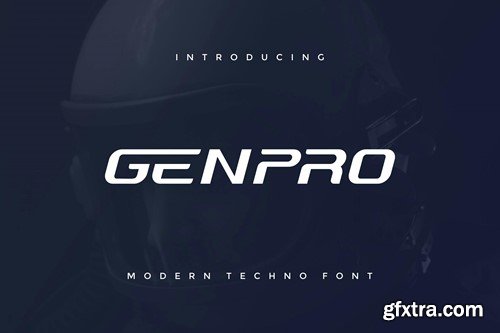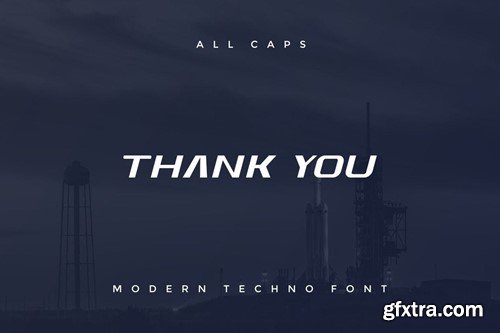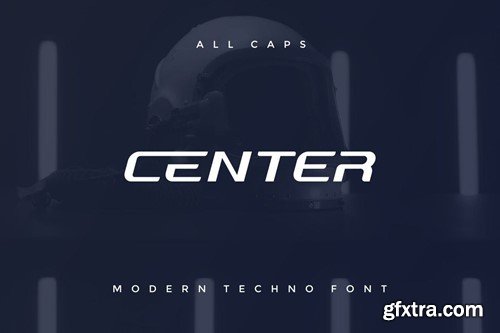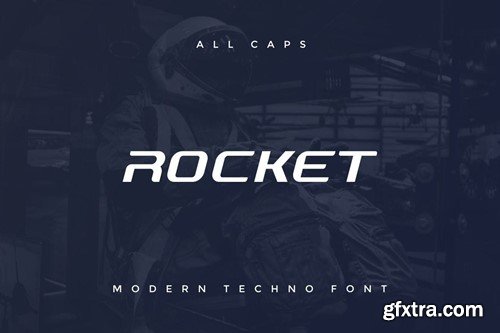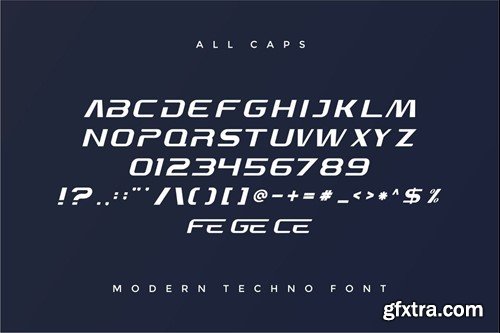
Genpro 现代 techno 字体 RBNP8A7
Genpro Modern Techno Font
Introducing our new product Genpro - Modern Font Genpro is a bold, modern display font with playful flair, ideal for attention-grabbing headlines, logos, and diverse design projects. Versatile and readable in both digital and print, Genpro adds a dynamic touch to your message. availlable